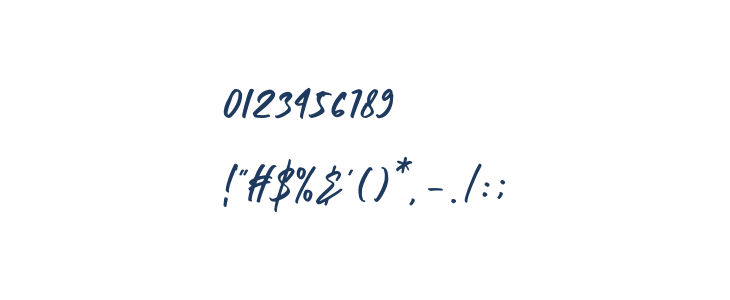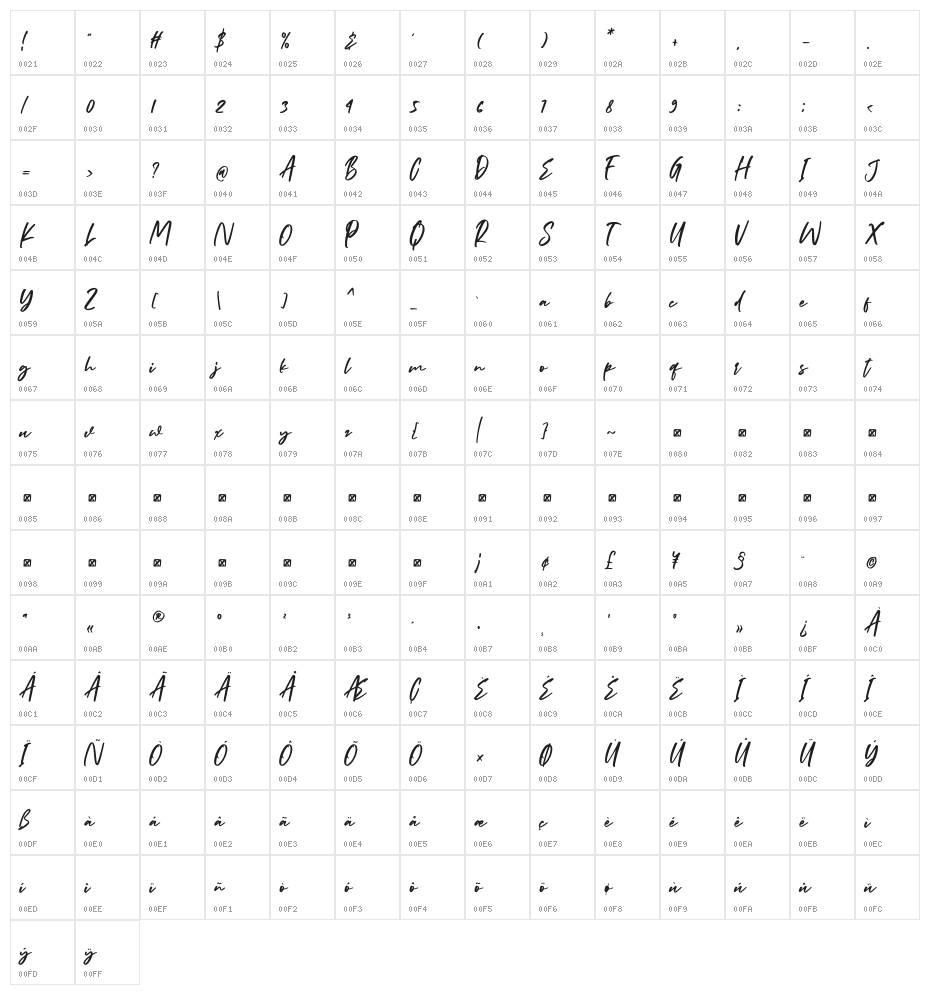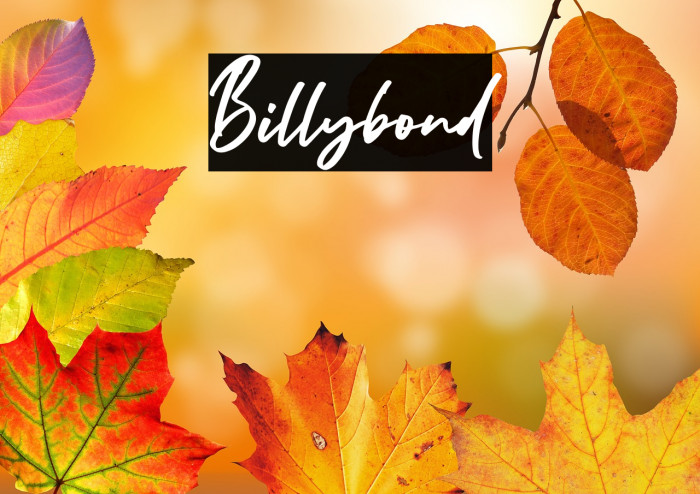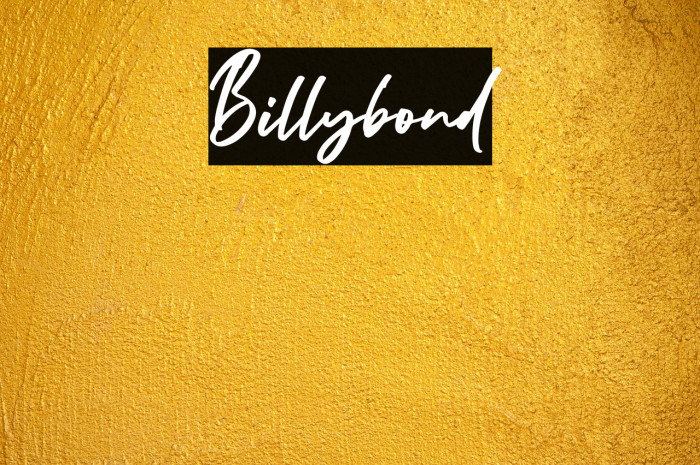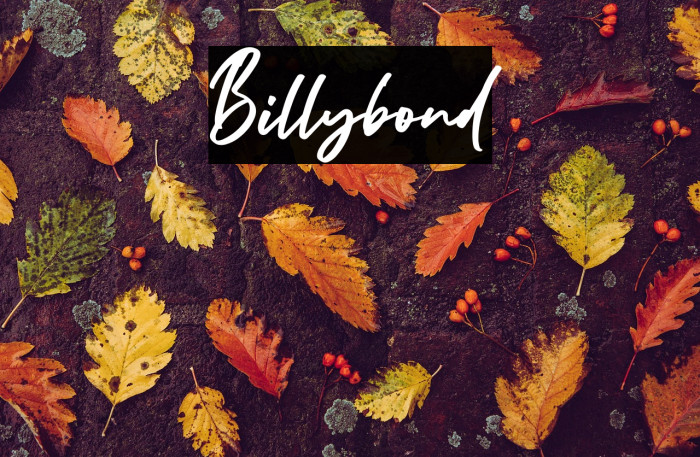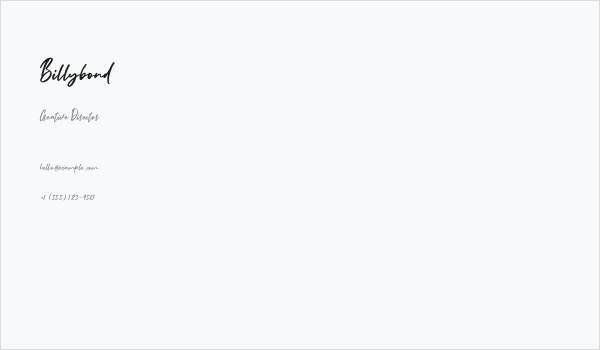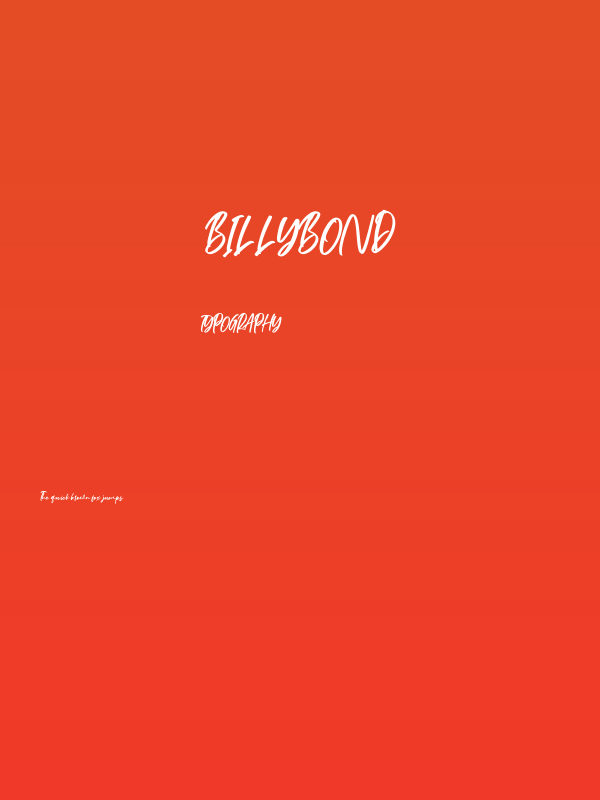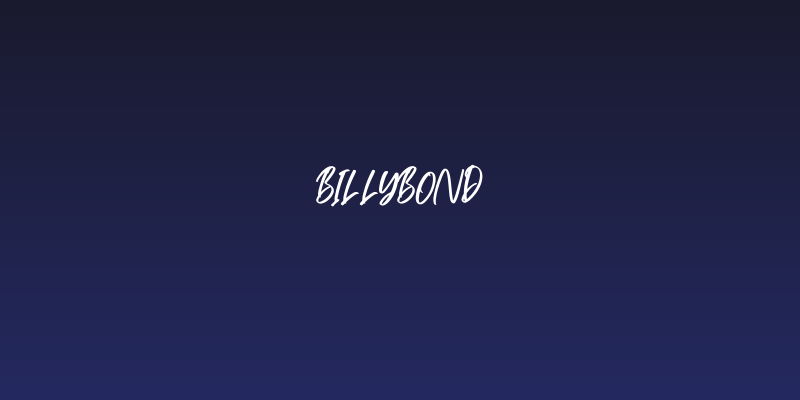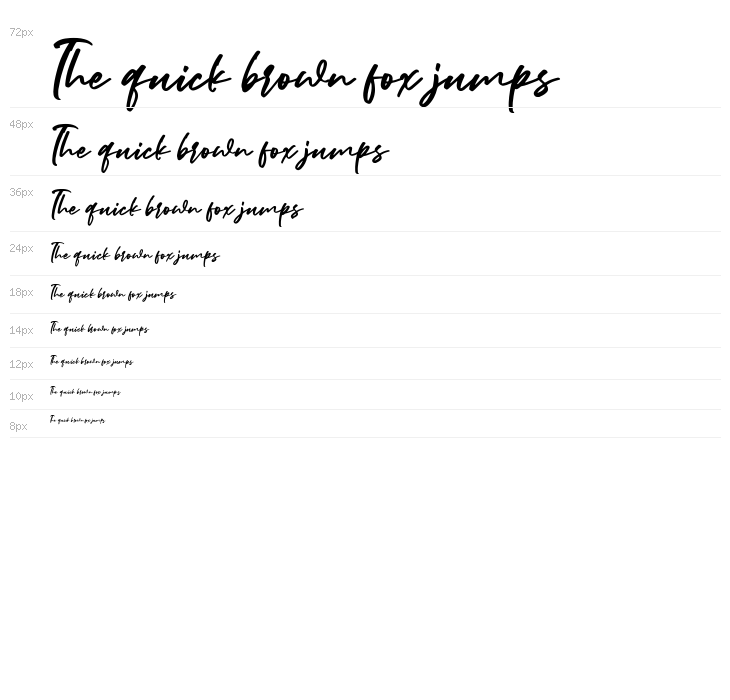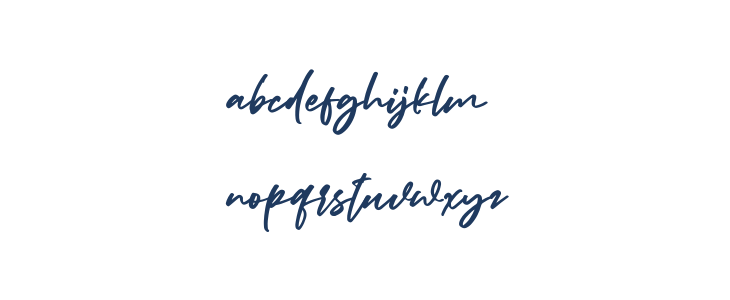
Billybond Font
Billybond Description
This font exhibits a dynamic and energetic handwritten style, characterized by its fluid and cursive strokes. The uppercase letters are bold and slightly slanted, giving a sense of movement and flair. The lowercase letters maintain a consistent flow, with some letters featuring unique loops and curves that add personality. The numerals are clear and legible, matching the overall aesthetic of the script. Special characters are well-integrated, maintaining the same lively and informal style. This font is perfect for projects that require a personal touch or a creative, artistic vibe.
| Proposed Projects | Ideal for greeting cards, invitations, branding, social media graphics, and creative projects requiring a personal touch. |